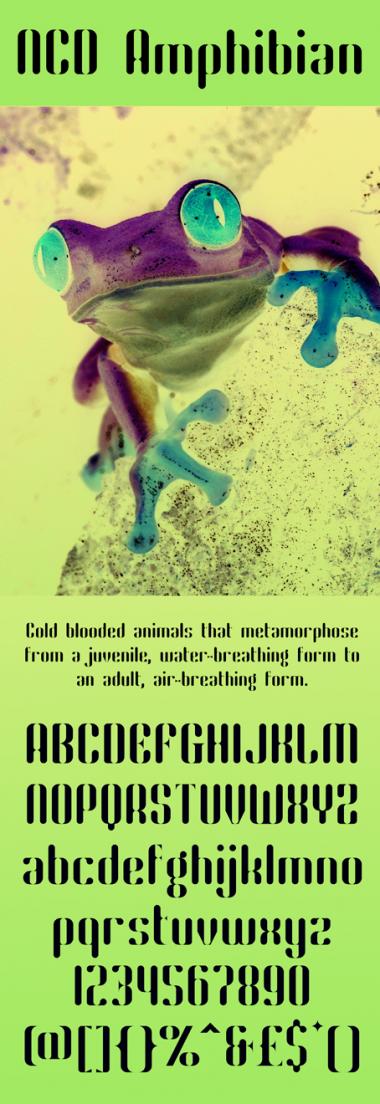
The lowercase 'g' is a lot of fun. Nice work.
I designed the lower case 'g' first. It was all downhill from there on! Ha ha.
It was also named after the frogs eye it created in the lower half of the 'g'.
This is first in the family of 6 Amphibian Font sets.